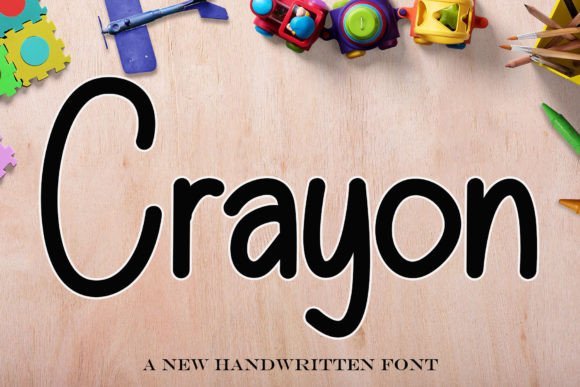
The Birth of a Masterpiece: Unlocking the Beauty of Crayon Font
Have you ever found yourself scribbling down ideas in a notebook, surrounded by the warmth of a cozy coffee shop or the comfort of your own home? The feeling of bringing your creative vision to life with every stroke of the pen is exhilarating, isn’t it? It’s in these moments that we’re reminded of the power of handwriting and the beauty it can bring to our work.
For designers looking to elevate their projects, Crayon Font is a game-changer. This stylish handwritten font boasts a contemporary atmosphere and impeccable form, inspired by the timeless classic calligraphy. With its balanced and varied design, Crayon Font is the perfect addition to any project, adding a touch of sophistication and elegance.
Crayon Font Key Features
- Font Family: Crayon is a sans-serif font family designed for digital use.
- Unique Characteristics: Crayon features a distinctive, childlike aesthetic with rounded edges and a friendly feel, making it suitable for creative and informal applications.
- Font Styles: Includes various font styles such as Regular, Italic, Bold, and Bold Italic.
Overall, I think the Crayon Font has some great qualities, but also a few drawbacks. Let’s dive in and explore what it has to offer! ✨
- Unique Look and Feel – The Crayon Font has a distinct, hand-drawn aesthetic that can add a playful touch to your designs.
- Legibility – Despite its playful appearance, the font is surprisingly easy to read, even at smaller sizes.
- Support for Various Languages – Crayon Font supports a wide range of languages, making it a great choice for multilingual designs.
- Limited Character Set ⚠️ – The font’s character set is relatively limited, which may not be suitable for complex or technical content.
- Not Ideal for Body Text ⚠️ – While the font is great for headlines or titles, it may not be the best choice for large blocks of body text due to its playful, cursive nature.
Overall, I think the Crayon Font is a great choice for designers looking to add a touch of whimsy to their projects. However, it’s essential to use it judiciously and consider its limitations when making design decisions.
Use the Crayon Font to add a playful touch to your designs, especially for children’s materials, educational content, or creative projects.
Combine the Crayon Font with colorful illustrations and graphics to create a fun and engaging visual identity.
The Crayon Font is ideal for:
- Children’s books and educational materials
- Playful advertising and marketing campaigns
- Artistic
Great Vibes is a modern script font that conveys a sense of playfulness and creativity. It is ideal for use in branding, advertising, and editorial content where a friendly tone is desired.
Great Vibes is more elegant and refined compared to Crayon Font, which has a more childlike and rough texture. Great Vibes is suitable for a wide range of applications, from packaging to digital media, whereas Crayon Font is often used for its nostalgic value.
Pacifico is a beautiful, elegant script font that exudes a sense of sophistication and luxury. It is perfect for use in high-end branding, luxury goods, and fine dining applications where a touch of class is required.
Pacifico has a more refined and polished look compared to Crayon Font, which has a more playful and casual feel. Pacifico is ideal for use in applications where a sense of elegance and refinement is desired, whereas Crayon Font is better suited for more casual and creative projects.
Carolyna Pro is a modern, elegant script font that is perfect for use in branding, advertising, and editorial content. It has a sophisticated and refined look that is ideal for use in high-end applications.
Carolyna Pro has a more refined and polished look compared to Crayon Font, which has a more playful and casual feel. Carolyna Pro is suitable for a wide range of applications, from packaging to digital media, whereas Crayon Font is often used for its nostalgic value.